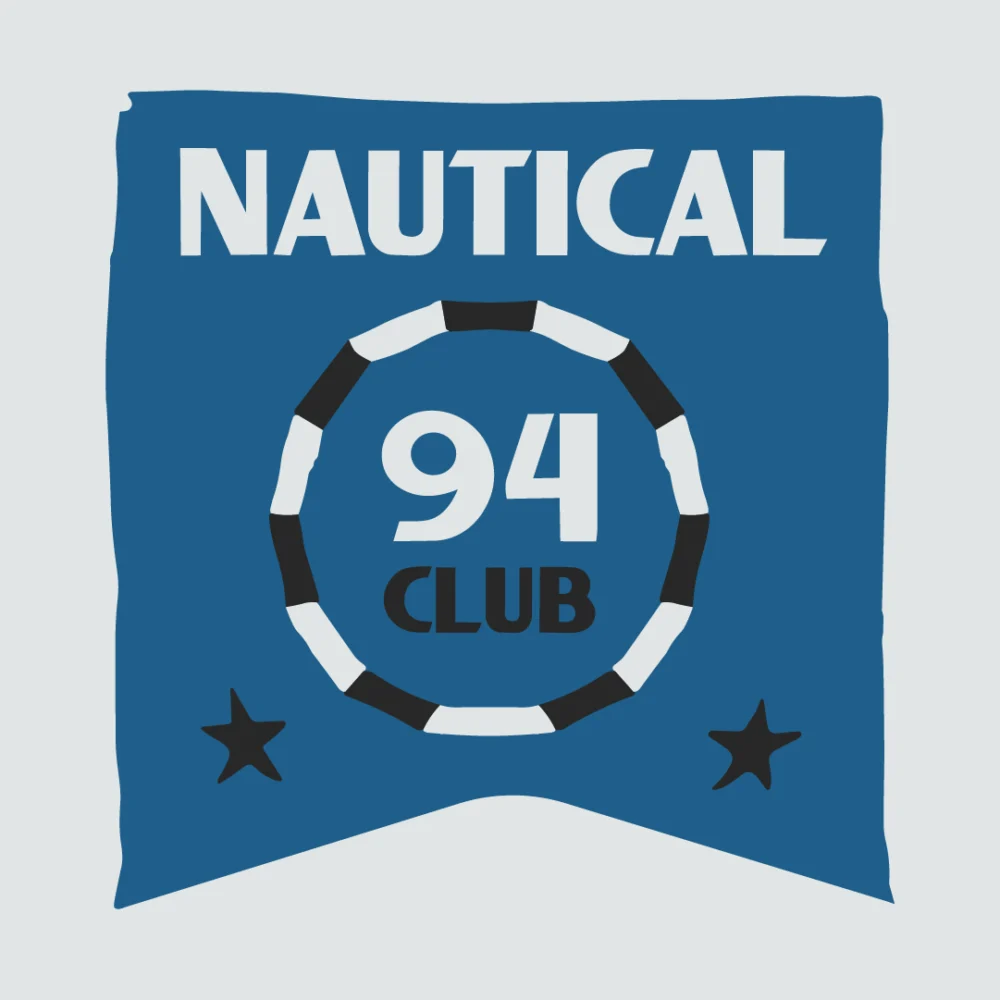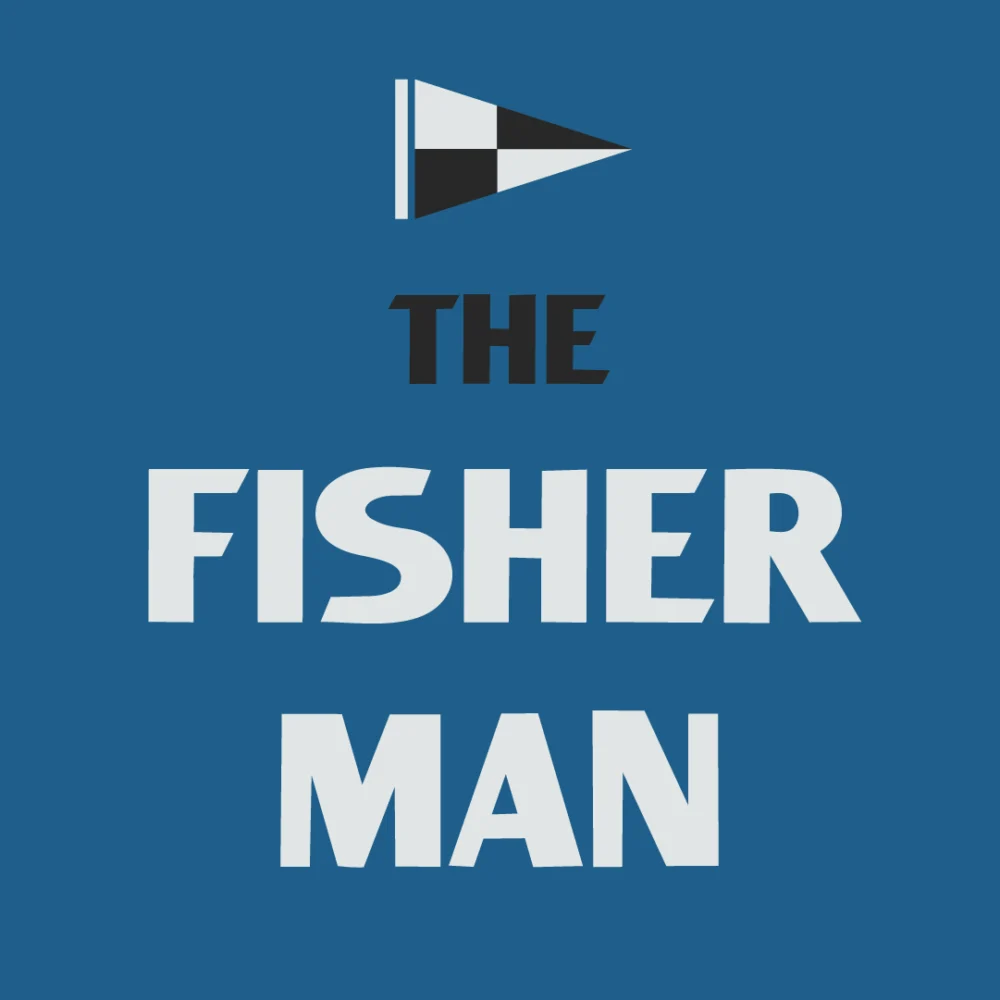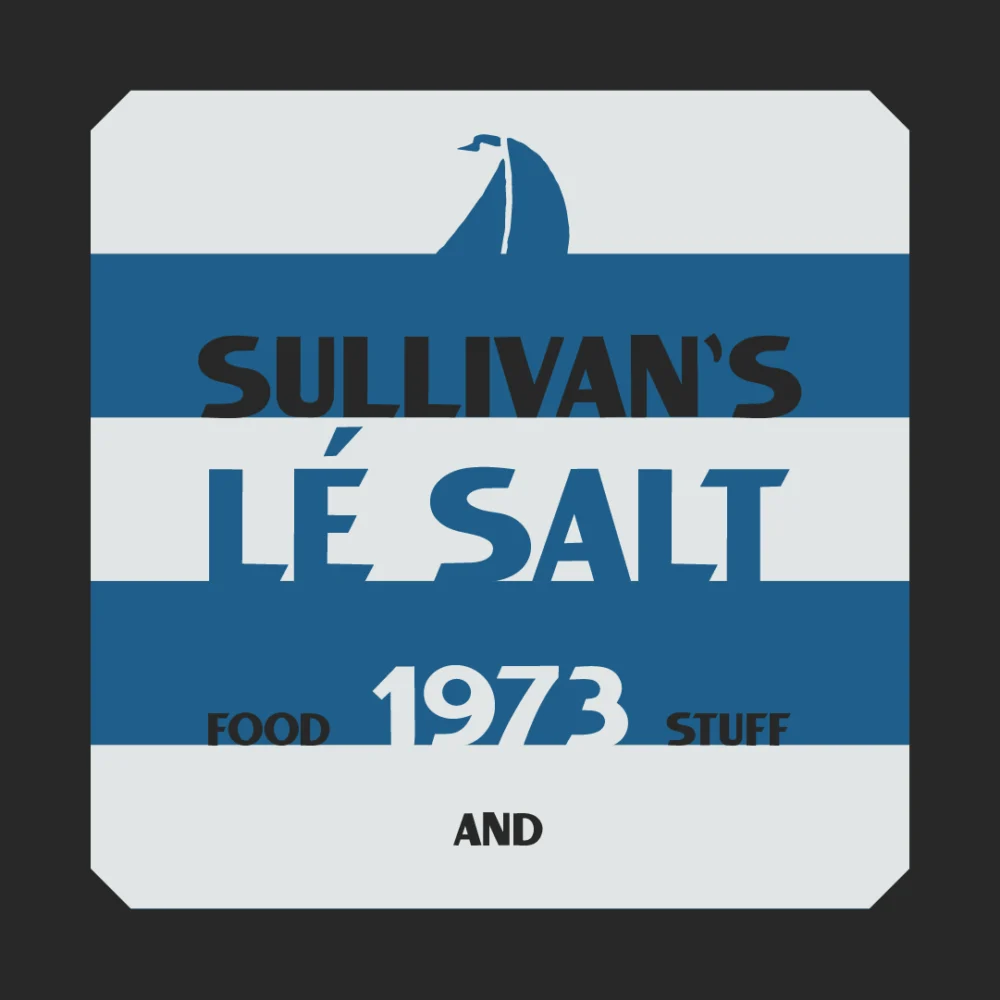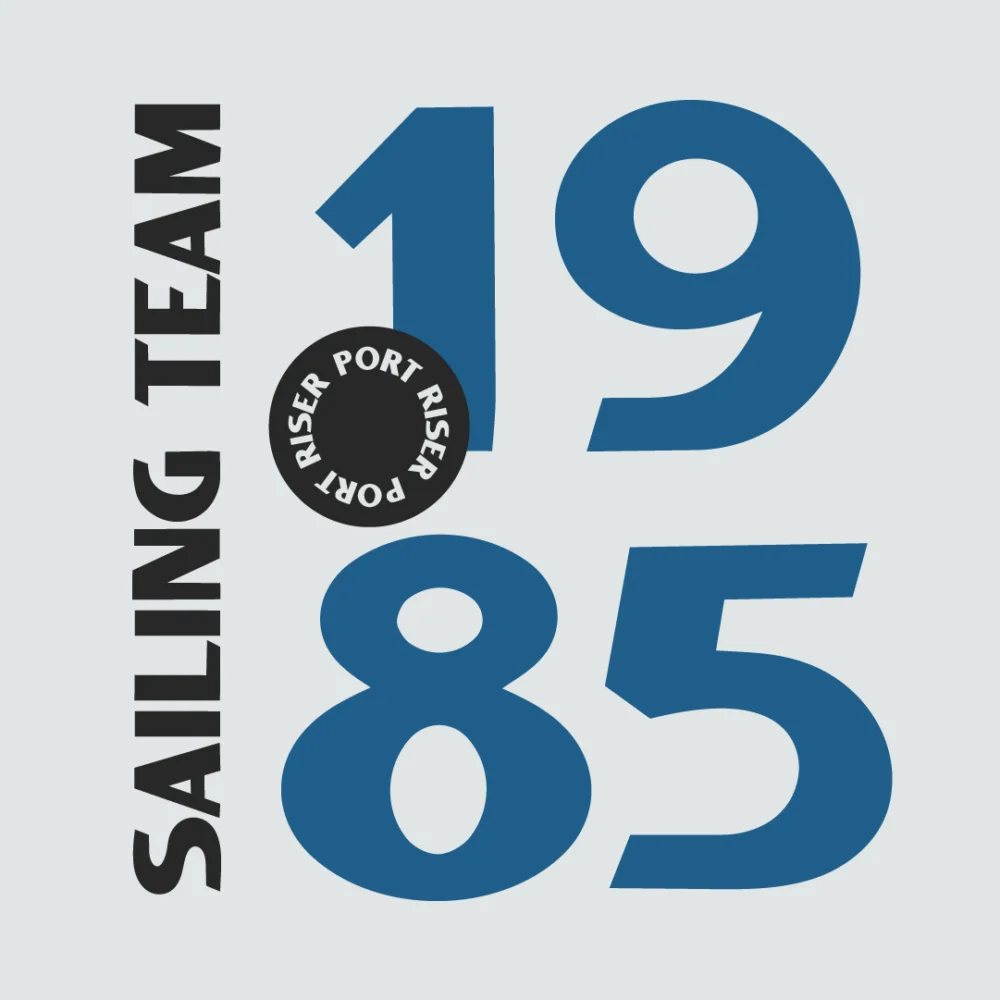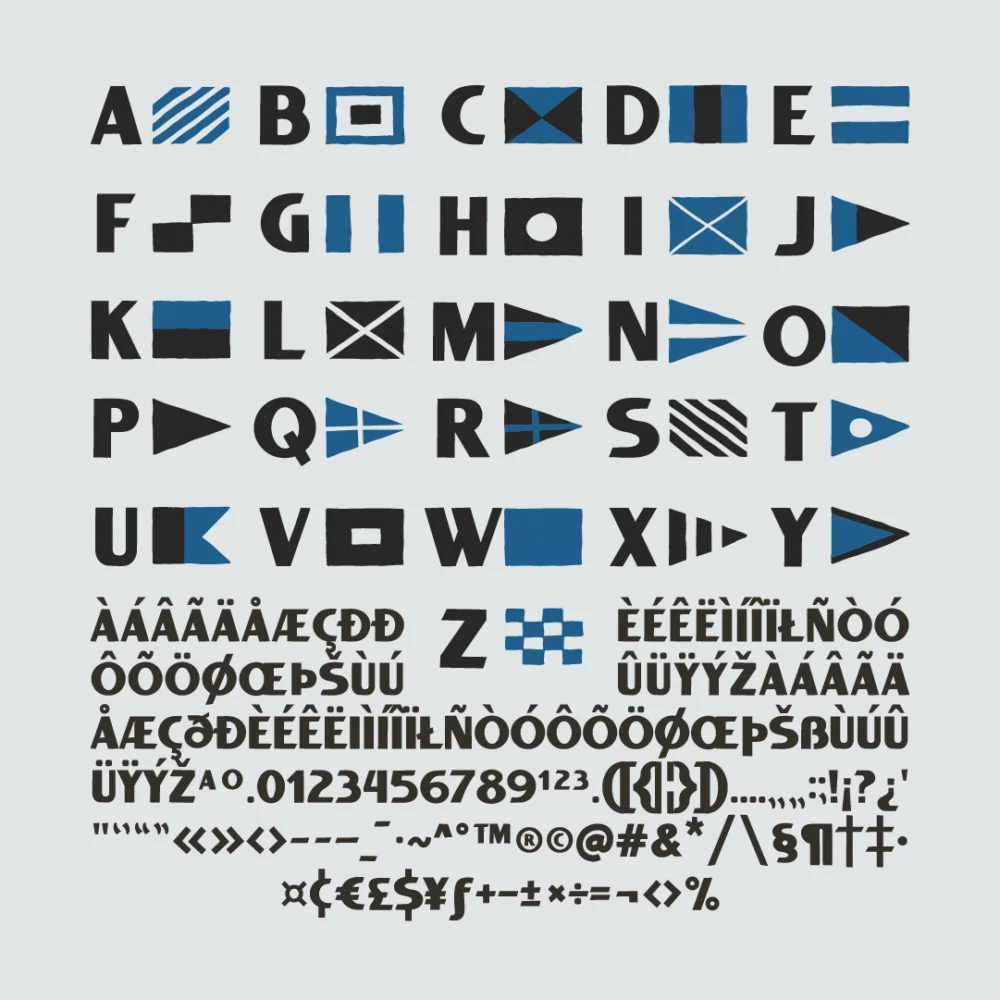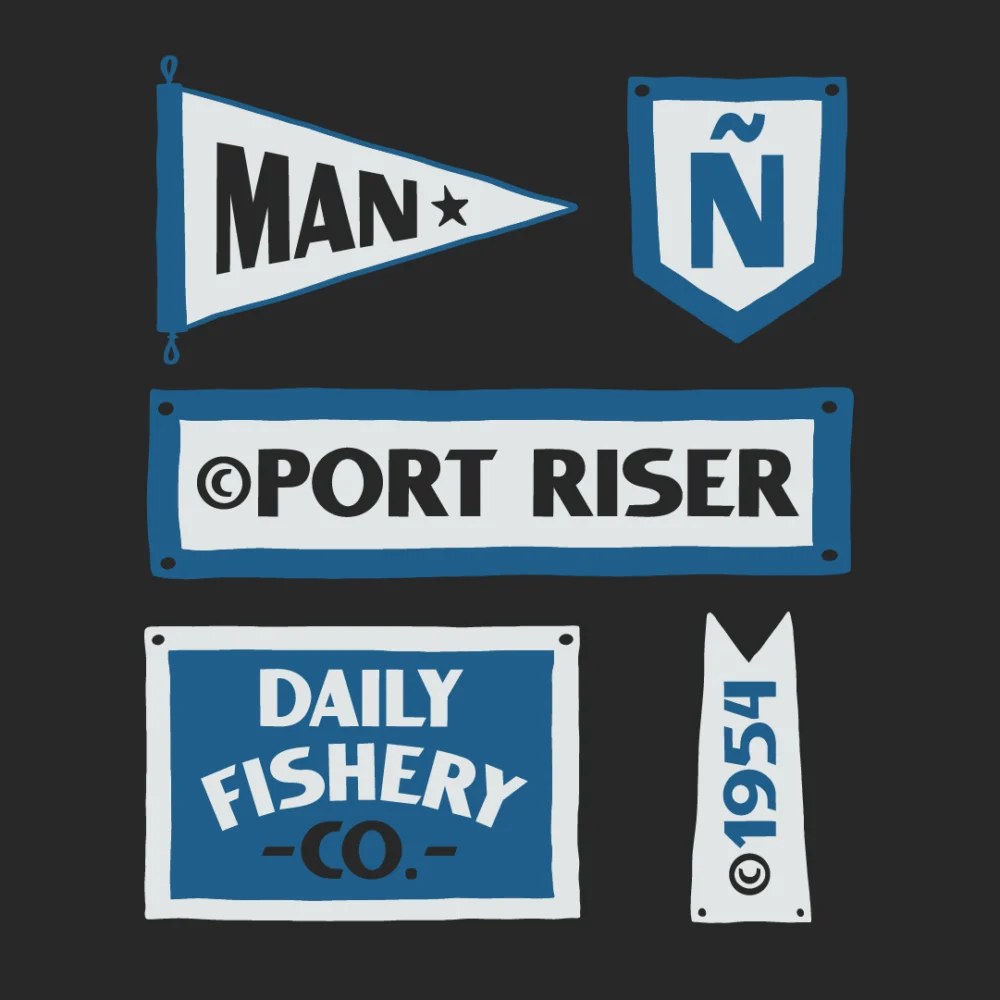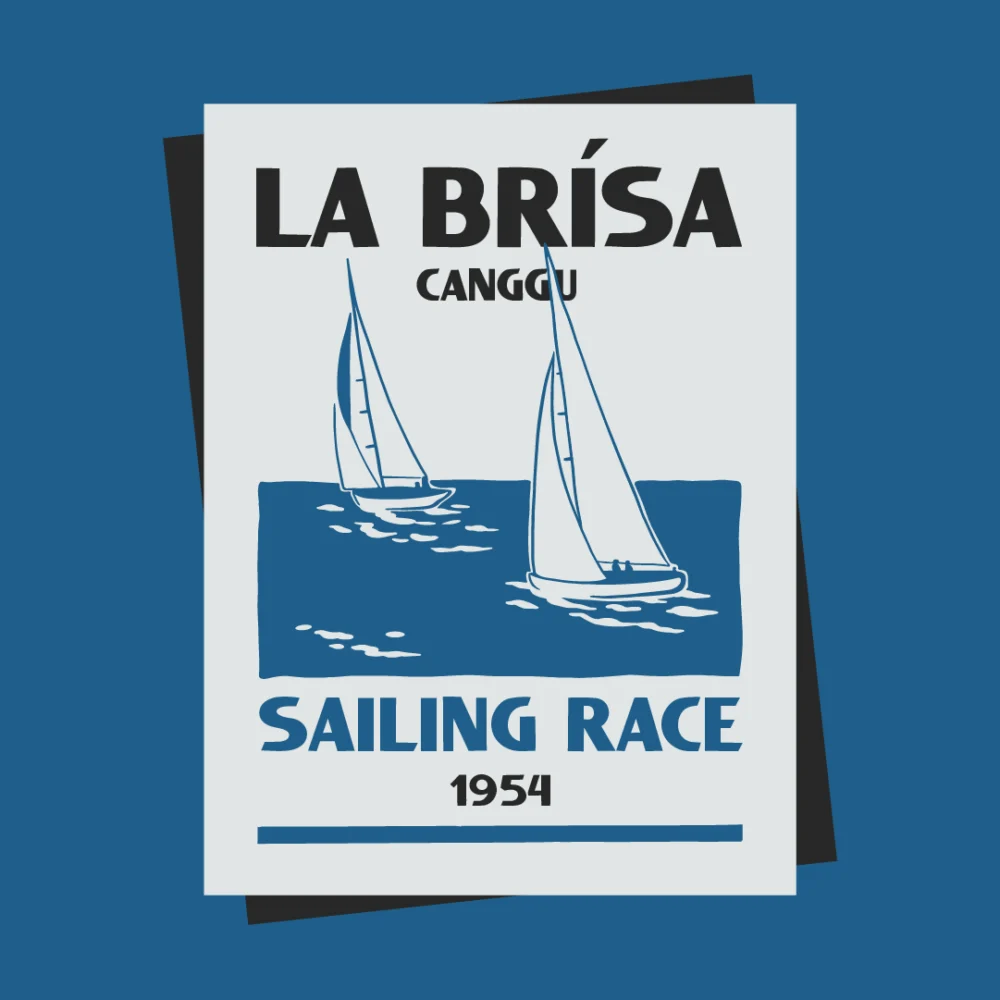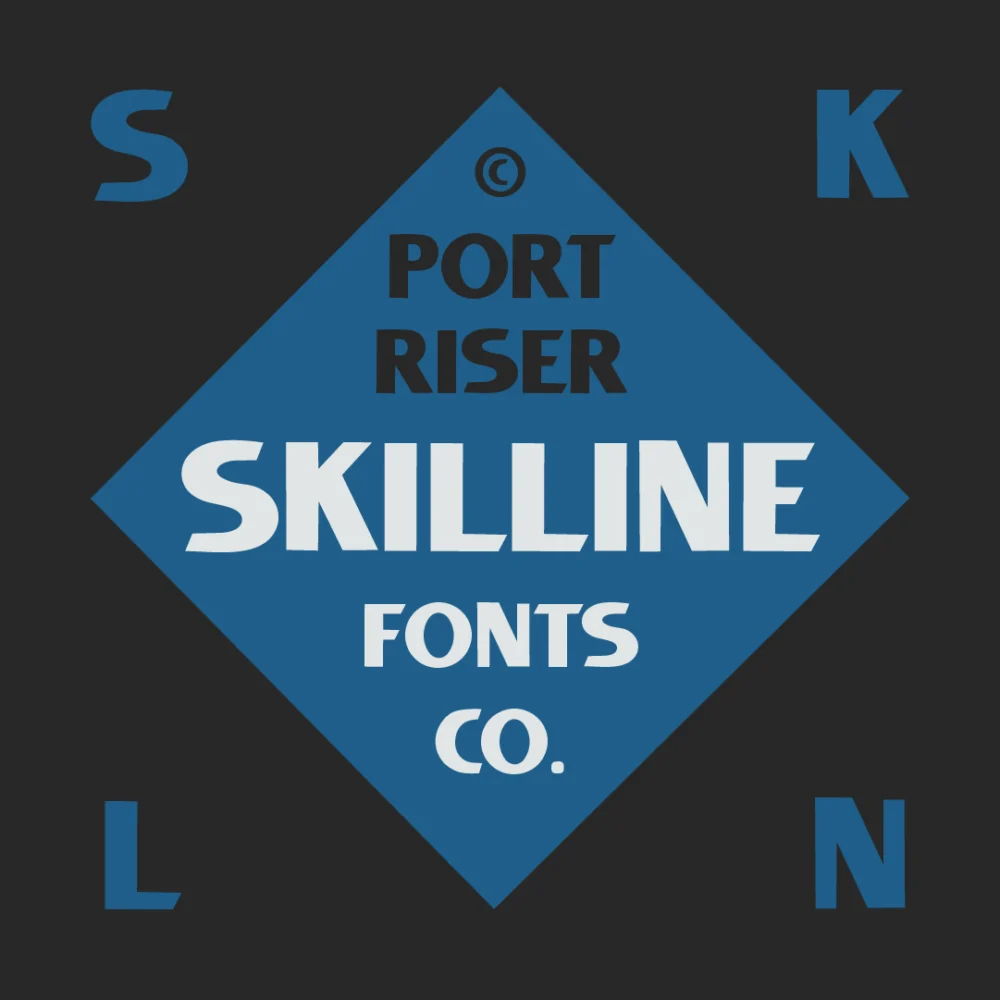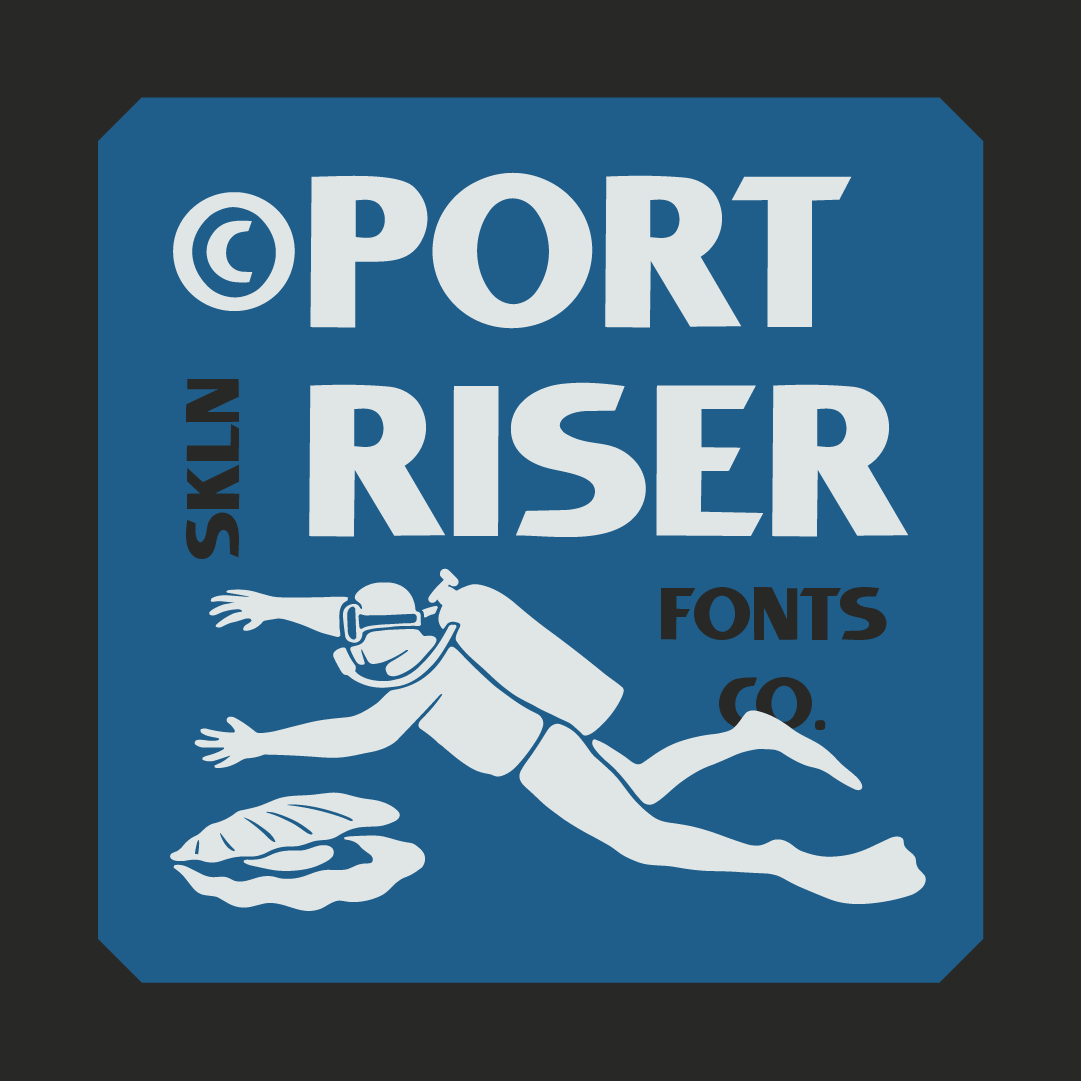
SFC Port Riser
Inspired by the typography found across harbors and sailing culture, Port Riser is a display font designed with clarity and purpose. Its bold letterforms reflect maritime communication, simple, readable, and built to stand out from a distance. Perfect for identity design, labels, posters, and apparel with a nautical or coastal direction. Port Riser blends vintage influence with clean execution, making it suitable for both heritage-style branding and contemporary projects.
Includes uppercase, numerals, punctuation, and multilingual support